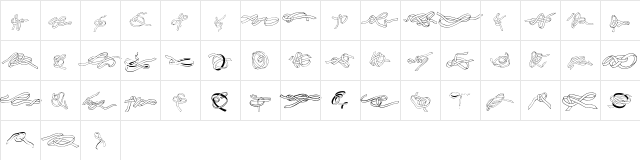
Zoeknots Regular Free Font
Zoeknots Regular
Design Context for Zoeknots
Zoeknots is a composed and adaptable typeface that performs quietly and consistently across a wide range of design contexts.